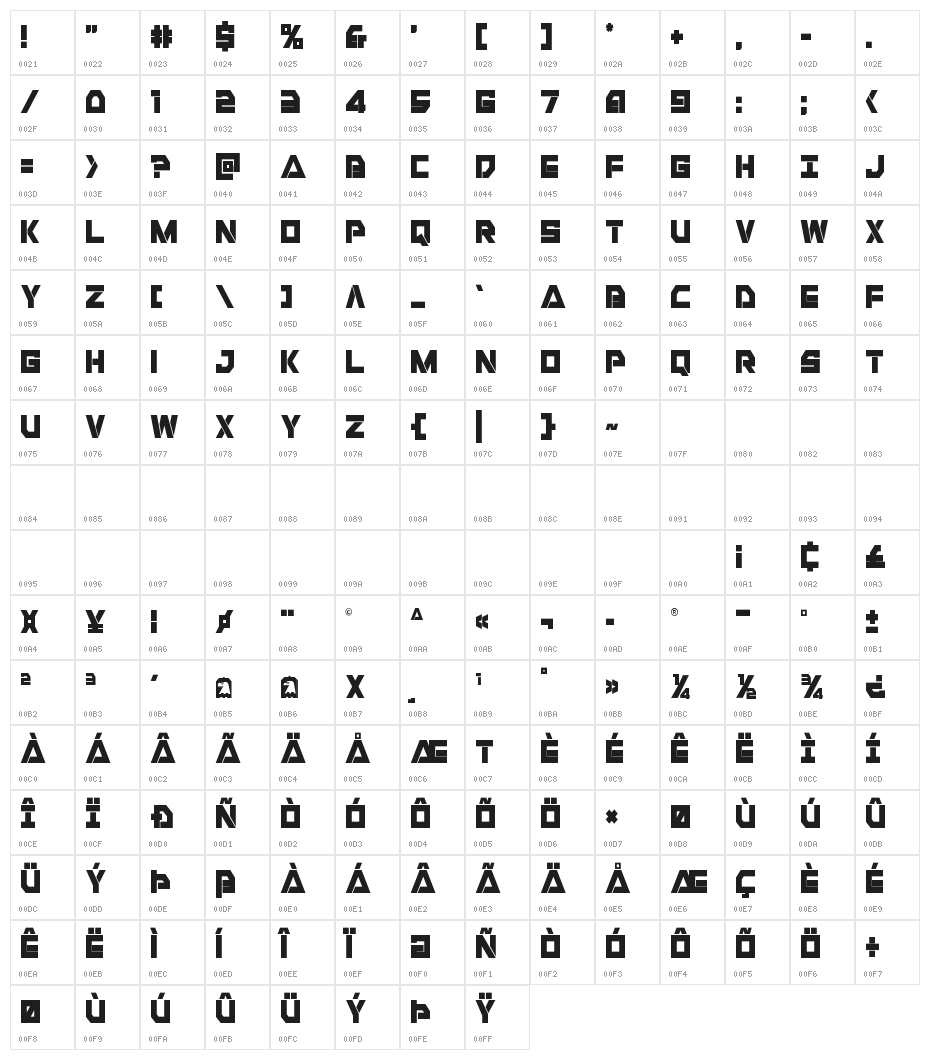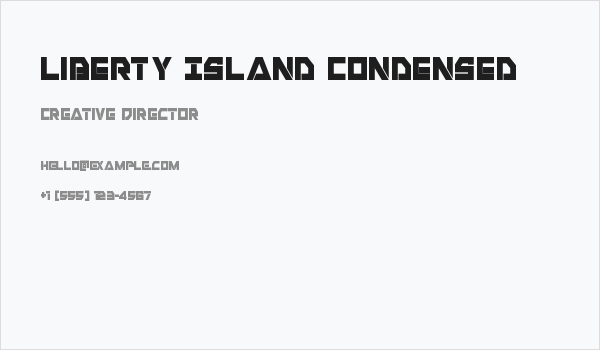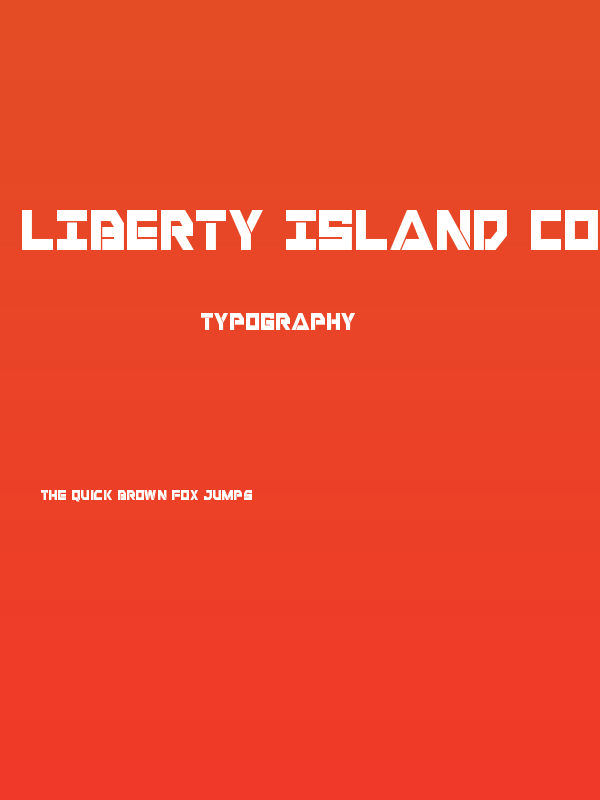
Liberty Island Condensed Font
Liberty Island Condensed Description
This font features a bold, geometric design with a distinctly modern and industrial feel. The characters are constructed with sharp angles and straight lines, creating a sense of strength and stability. The condensed width of the letters allows for efficient use of space, making it ideal for impactful headlines and titles. The uppercase letters are particularly striking, with a uniform height that enhances the font's cohesive appearance. The numerals and special characters maintain the same bold and angular style, ensuring consistency across all text elements. This font's unique aesthetic makes it suitable for projects that require a strong visual presence.
Proposed ProjectsIdeal for branding, posters, headlines, and any design requiring a strong, modern aesthetic.